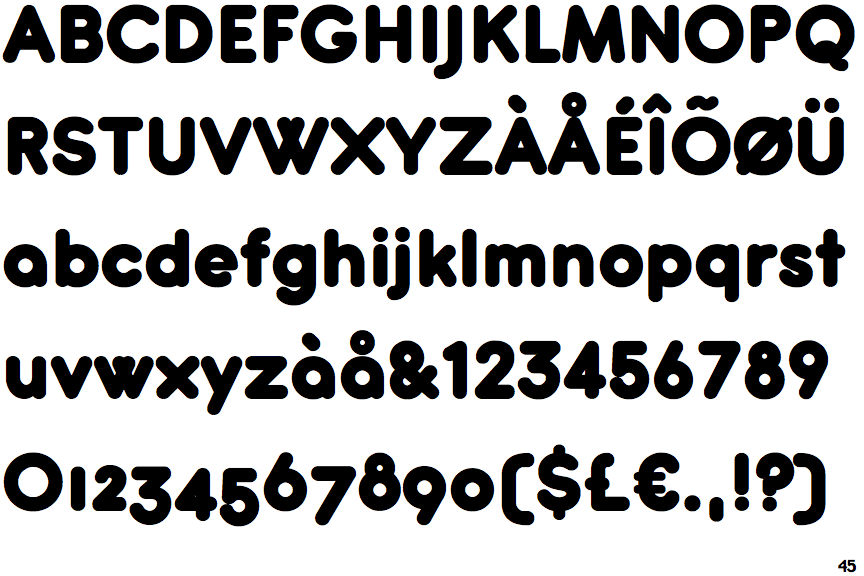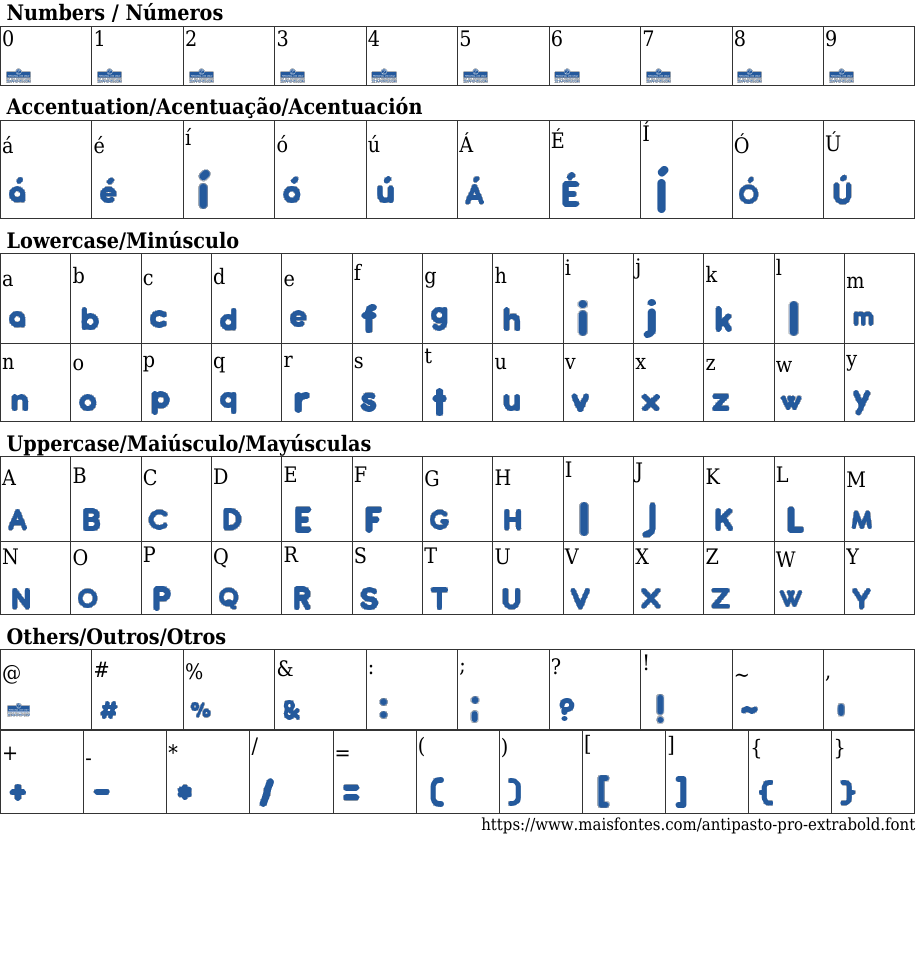
Antipasto Extrabold Font Free . The antipasto font has been. The original family of three weights has been. Antipasto is a geometric sans serif font designed by cosimo lorenzo pancini. A great choice for highlighting your design elements. Download antipasto pro font family · free for personal use · this trial font is totally free for noncommercial uses. The original family of three weights has been revised and expanded in 2017 with antipasto pro that now includes cyrillic and greek characters,. Download and install the antipasto font by zetafonts. See how to download antipasto extrabold for free! Download free antipasto extrabold font by zetafonts. Thousands of designers (famous or not) use the image font detection system to find a font or similar free fonts from an image. Antipasto extrabold font free download.